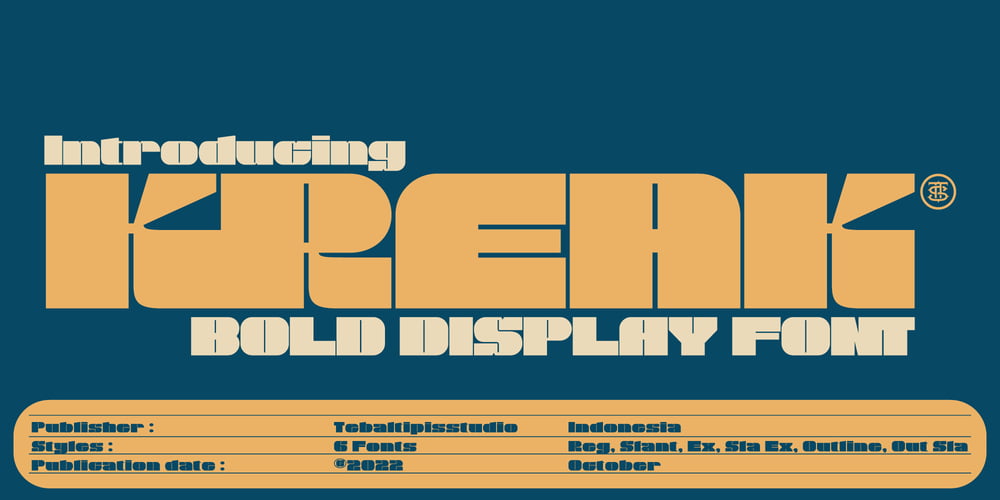
Kreak Display Font Family was designed by Dzulka Elfira and published by Tebaltipis Studio. Kreak Display contains 6 styles and family package options. KREAK is a bold display font with 6 various styles for your needs. KREAK has uppercase, lowercase, alternative, and ligature letters. It’s fun, pop, vintage, and playful!WHAT’S YOU GET ? Unique Letterforms Works on PC & Mac Simple Installations Accessible in the Adobe Illustrator, Adobe Photoshop, Microsoft Word Fully accessible without additional design software. I really hope you’ll get pleasure using Pagers font and it will be perfect addition to your font collection! Contact me with an inbox message If you have any question. Thank you! Happy Creating